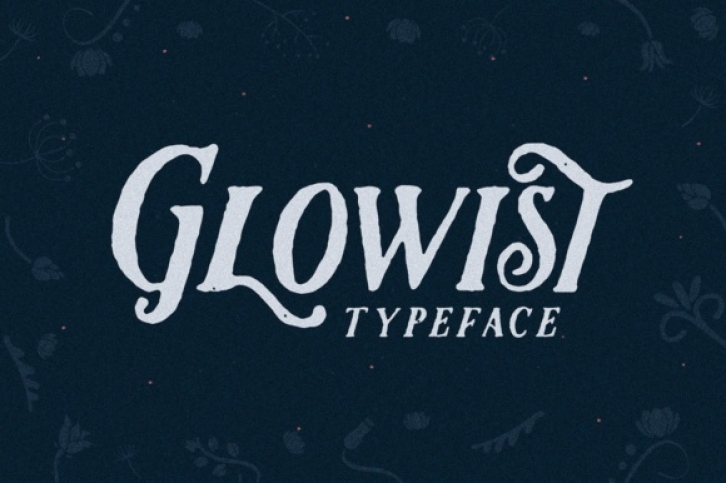
Glowist is a stunning serif font made by hand. This font has an organic and textured feel to insinuate the type you find in storybooks, and this download comes with added ornaments that will provoke your creativity!